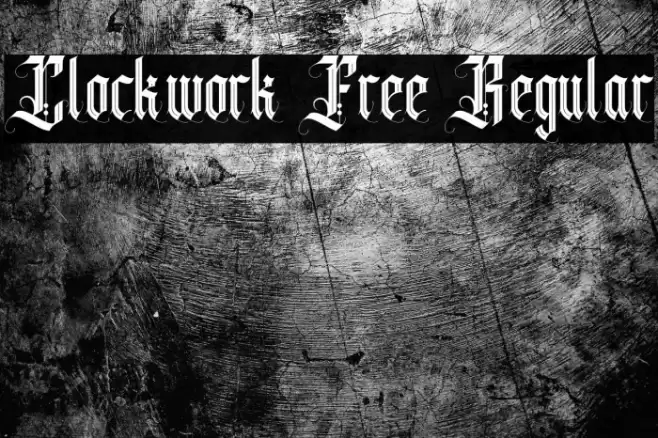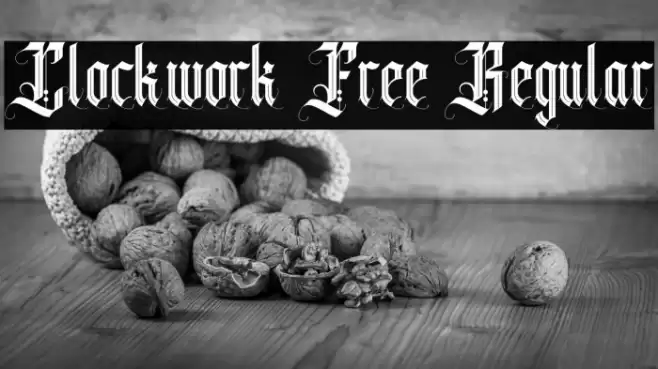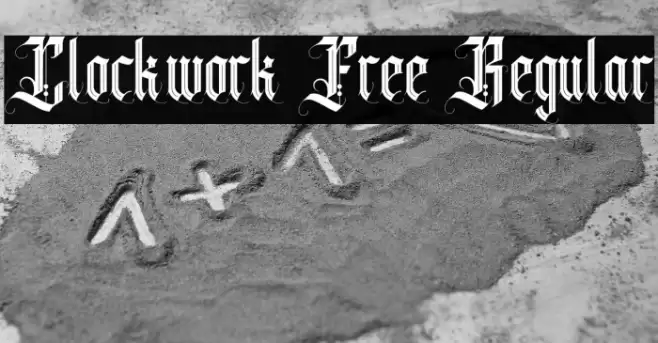
Clockwork Free Regular Font
Clockwork Free Regular Description
This font embodies a classic blackletter style, reminiscent of medieval script with its intricate and ornate letterforms. The uppercase letters are particularly elaborate, featuring sharp angles and decorative flourishes that give each character a distinct and regal appearance. The lowercase letters maintain the same gothic aesthetic but with slightly less ornamentation, allowing for improved readability. The font's overall design is highly decorative, making it ideal for projects that require a historical or vintage touch. The numerals and special characters are consistent with the gothic theme, ensuring a cohesive look across all text elements.
An ornate blackletter font with intricate, medieval-inspired letterforms from Regular fonts.
- Proposed Projects: Ideal for historical documents, vintage posters, book covers, and branding that requires a gothic or medieval aesthetic.
- Overall Style: Vintage
- Use Case: Logos, Headlines, Decorative text